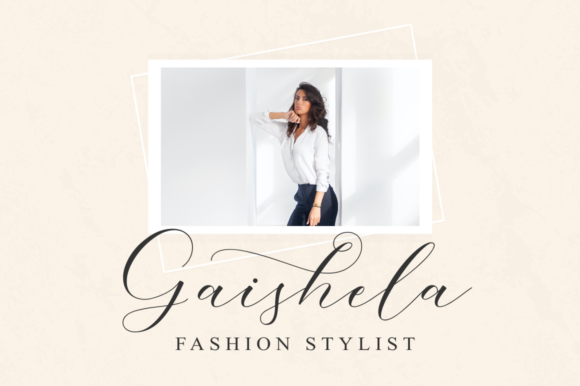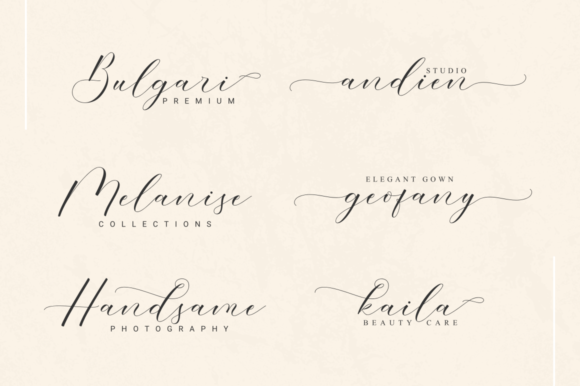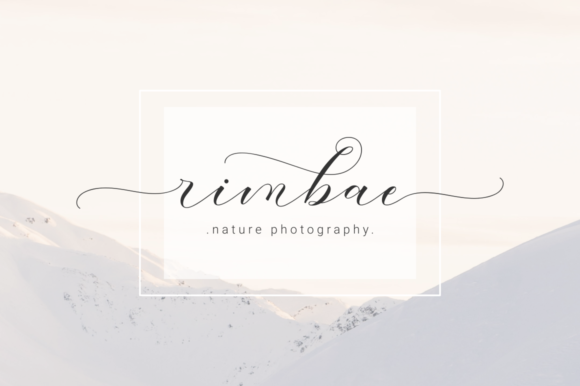
Lindae is a beautiful light handwritten font with a unique feel and a stunning impact.
It will add a luxury spark to any design project that you wish to create This font is PUA encoded which means you can access all of the amazing glyphs and ligatures with ease.
Lindae Font offers exceptional quality and versatility, making it a valuable addition to your design toolkit. Whether you’re creating for personal projects or commercial use, Lindae Font delivers professional results.